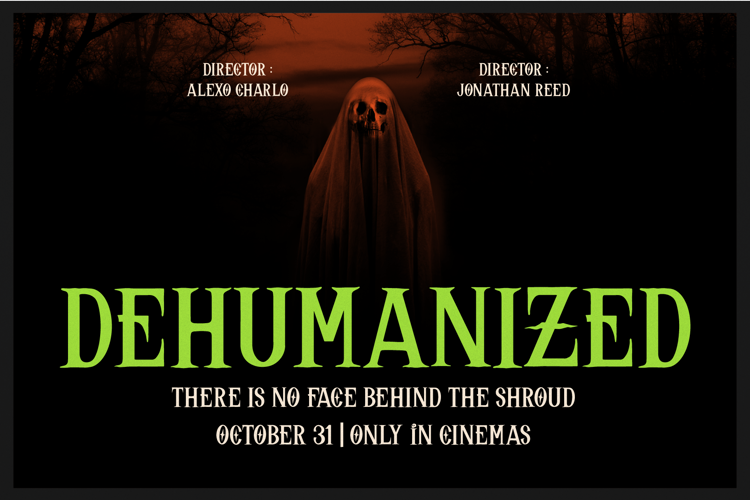
Lucent Nocturn Font
Lucent Nocturn | Gothic Horror Font product packaging, mugs, quotes, posters, shopping bags, t-shirts, book covers, name card, invitation cards, greeting cards, label, photography, watermark, special events, and all your other lovely projects that need a Halloween font taste.